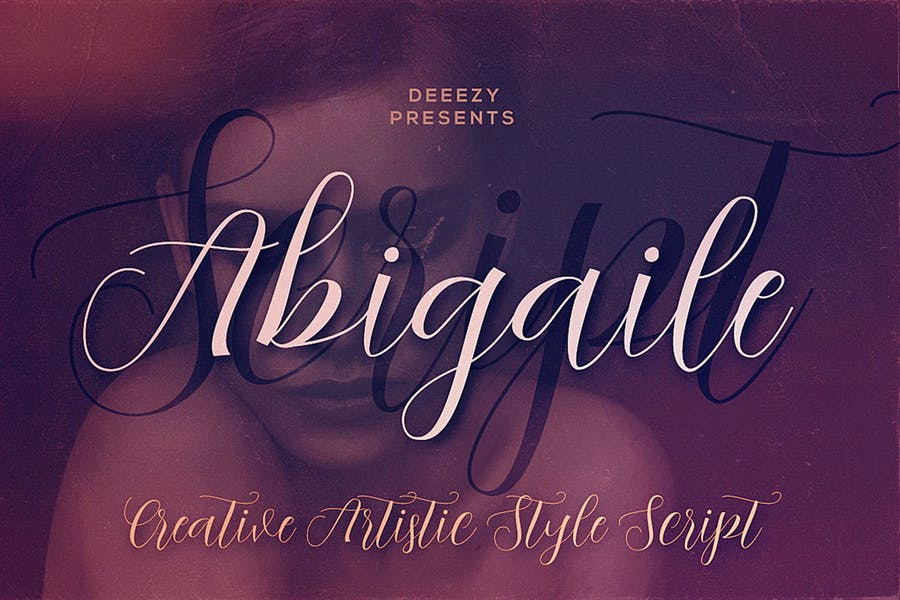
Abigaile Script Font
Abigaile Script Font is perfect for romantic wedding invitations, feminine lifestyle blogs, boutique branding, elegant personal stationery, beauty salon marketing, luxury spa signage, handmade craft labels, and sophisticated calligraphy projects.
What makes Abigaile Script Font exciting is its romantic elegance that captures the heartfelt beauty and personal intimacy of handwritten correspondence and romantic expression. The font features flowing letterforms with delicate curves and graceful character variations that evoke love letters, personal journals, and the tender artistry of heartfelt communication. Its distinctive script styling and romantic appeal communicate intimacy, personal connection, and elegant femininity, making every message feel written with love and touched by the gentle grace of romantic sentiment.
The Abigaile Script Font family includes regular weight with uppercase and lowercase letters, numerals, punctuation marks, and special characters. Premium versions often feature stylistic alternates and romantic flourishes that enhance the intimate, elegant aesthetic perfect for wedding and personal branding applications.
This beautiful romantic typeface brings instant intimacy and feminine charm to any love-focused project. Abigaile Script Font Free Download delivers exceptional results for businesses and individuals celebrating romance, personal expression, and the elegant beauty of handwritten communication to audiences seeking heartfelt connections.
The intimate character of Abigaile Script Font makes it particularly valuable for wedding industry professionals, romantic event planners, and personal branding specialists. Its excellent readability ensures romantic messaging and personal communications remain clear while maintaining the distinctive script aesthetic that appeals to couples and individuals seeking elegant romantic expression.
Wedding industry marketers appreciate how Abigaile Script Font effortlessly conveys romantic authenticity and personal intimacy. The font's flowing proportions and delicate details create beautiful brand materials that establish emotional connections with audiences celebrating love, personal milestones, and the elegant expression of romantic sentiment.
The versatile romance of this typeface extends to personal coaching, romantic gift companies, and intimate event services where heartfelt authenticity enhances emotional appeal. Abigaile Script Font Free Download provides creative professionals with an essential tool for developing memorable, romance-inspired designs that resonate with audiences who embrace romantic expression, personal intimacy, and the flowing beauty of handwritten love in their special occasions and personal communications.